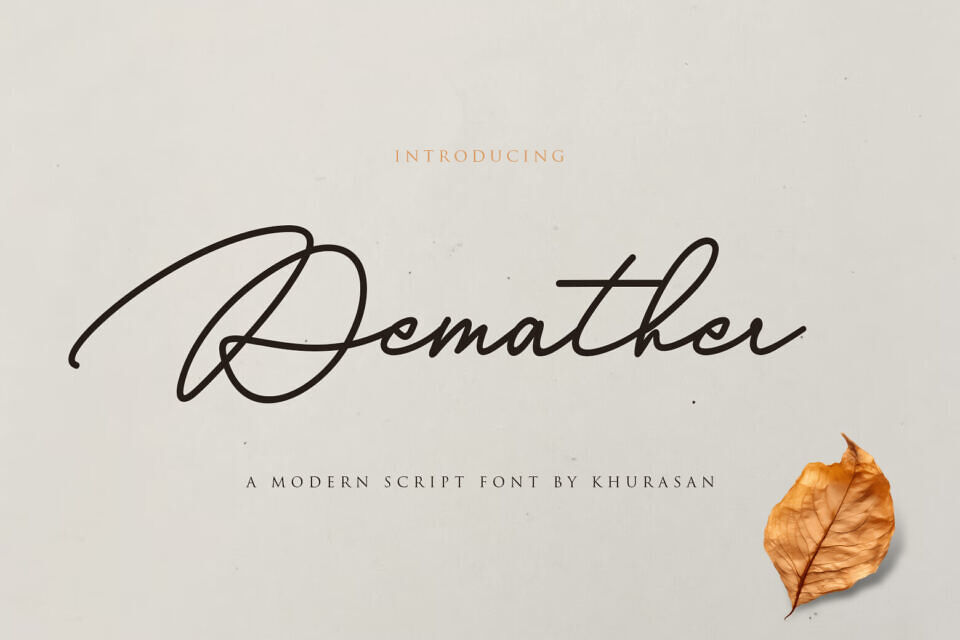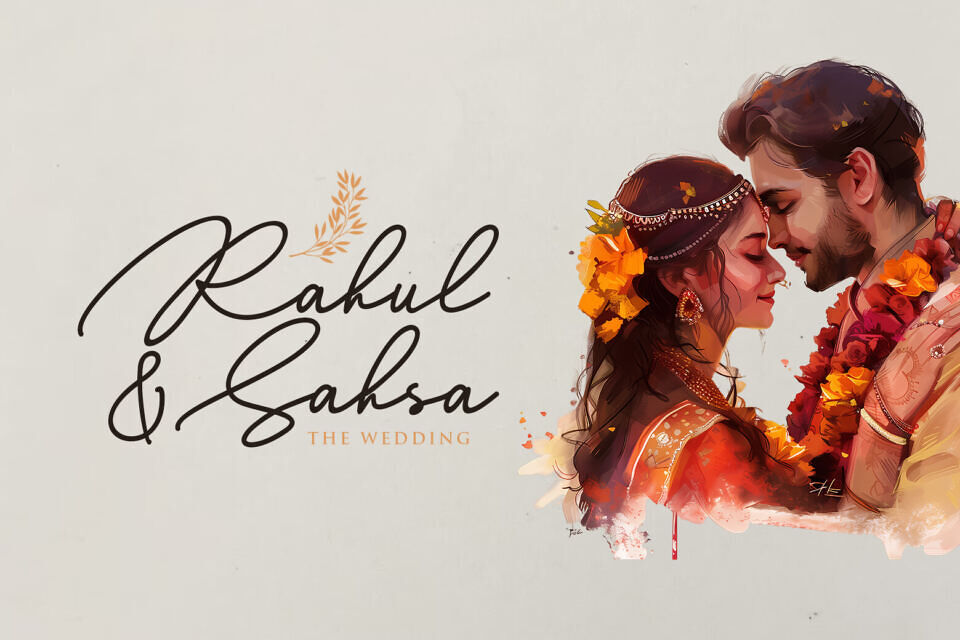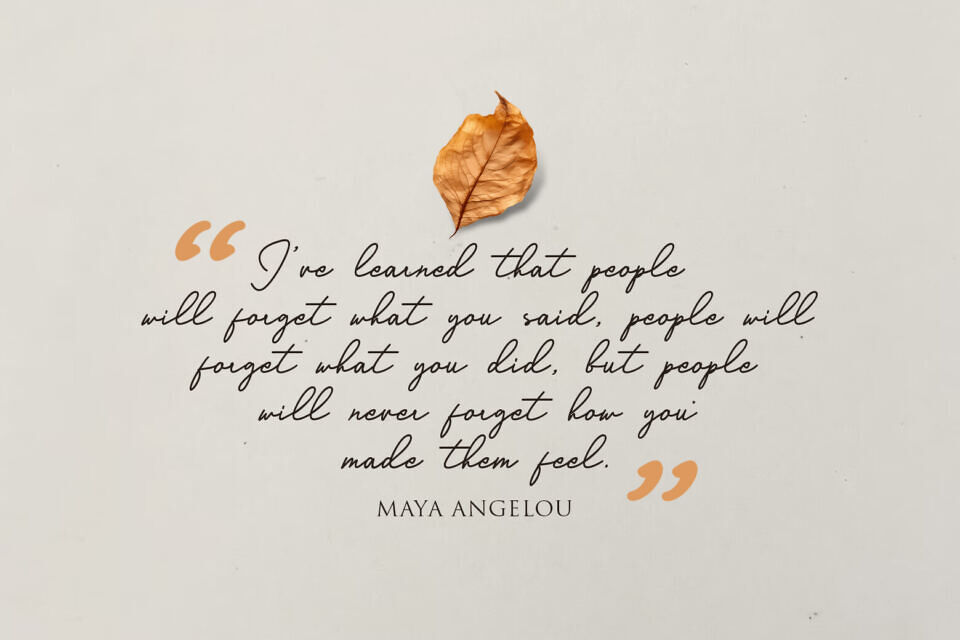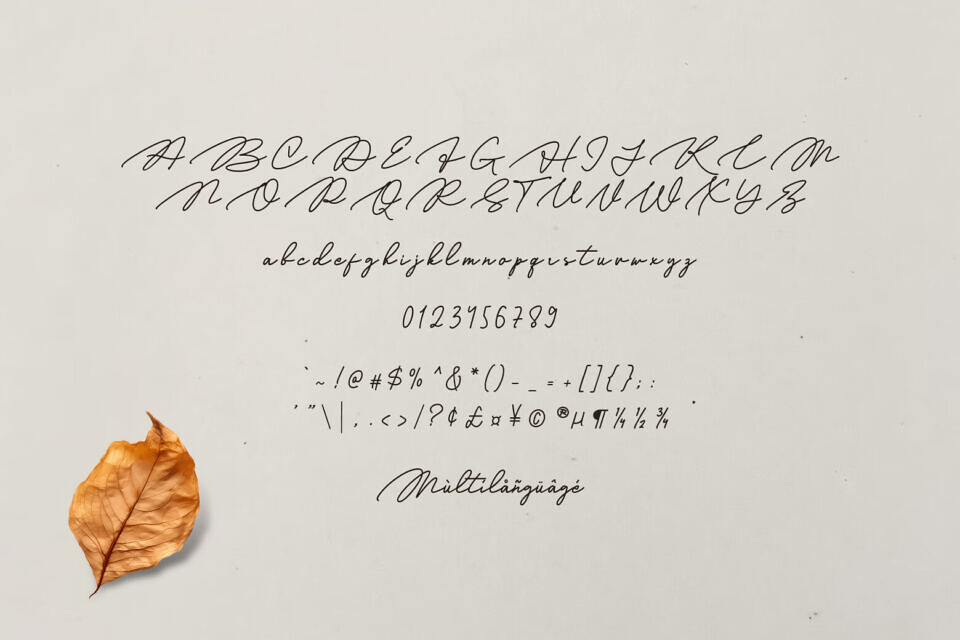
Demather is a modern handwritten script font with a clean, flowing style that mimics natural penmanship. Its elegant monoline strokes and slightly slanted letterforms give it a casual yet refined look, perfect for adding a personal touch to any design.
Demather works beautifully across a wide range of creative projects, including branding, blog headers, social media graphics, quotes, invitations, product packaging, and minimalist logos.